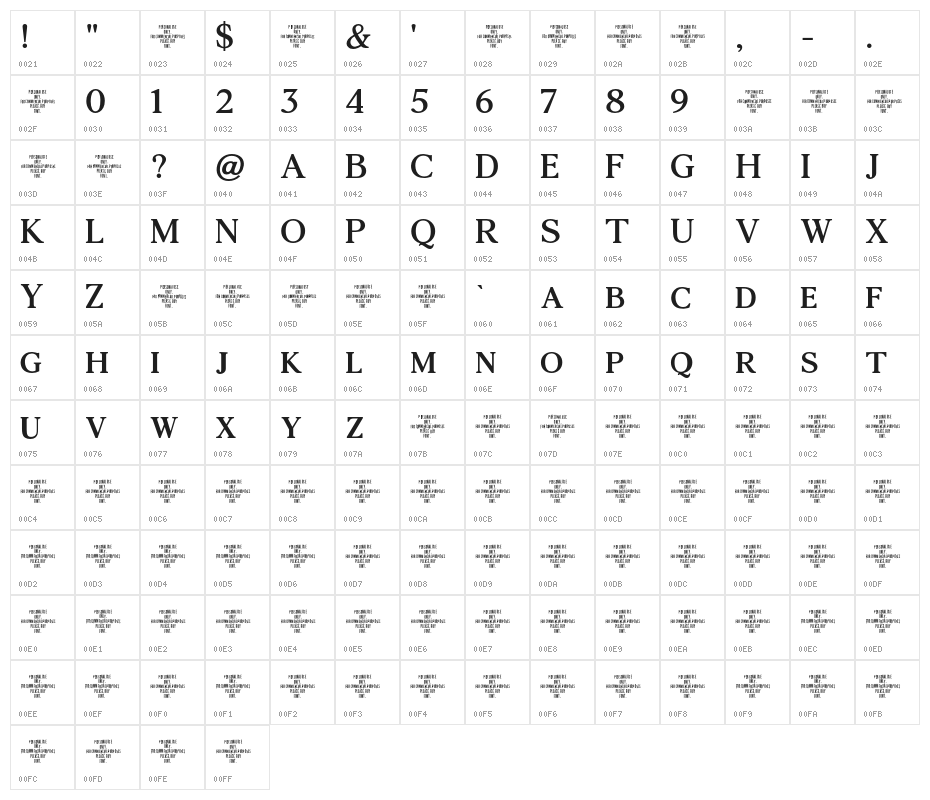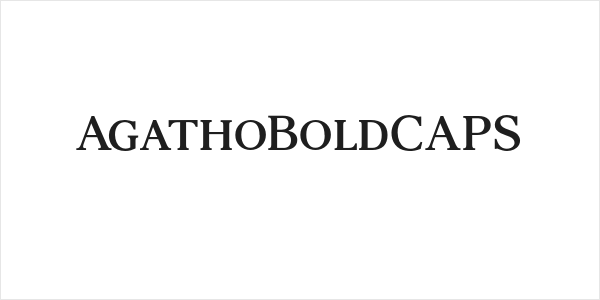
AgathoBoldCAPS Font
AgathoBoldCAPS Description
This font features a classic serif style with bold, strong strokes that convey a sense of authority and tradition. The uppercase letters are prominent and well-defined, making them ideal for headings and titles. The numerals are equally bold, ensuring clarity and readability. The special characters are designed to match the overall aesthetic, maintaining consistency throughout. The font's design is both timeless and versatile, suitable for a variety of applications where a formal and impactful look is desired.